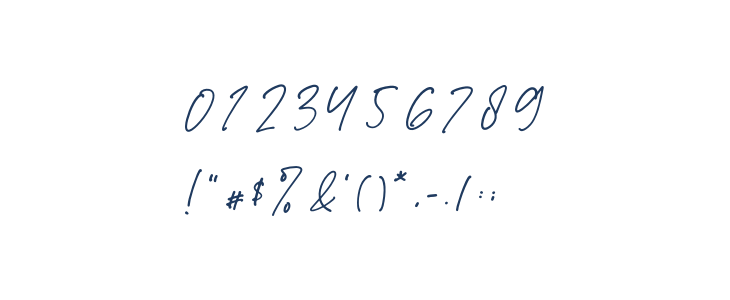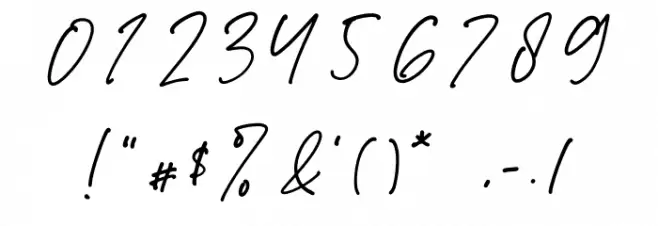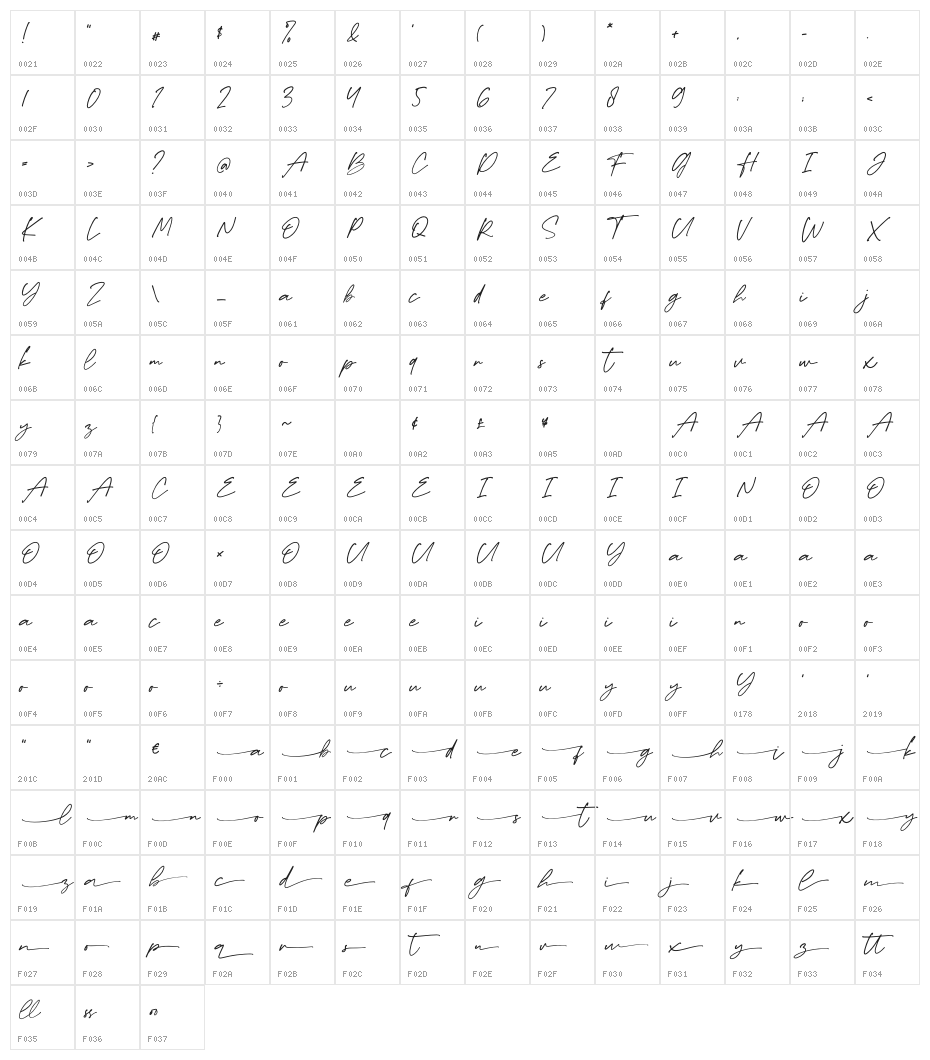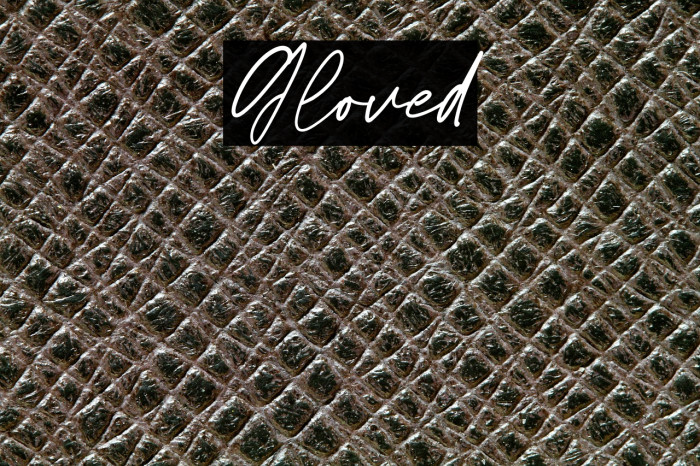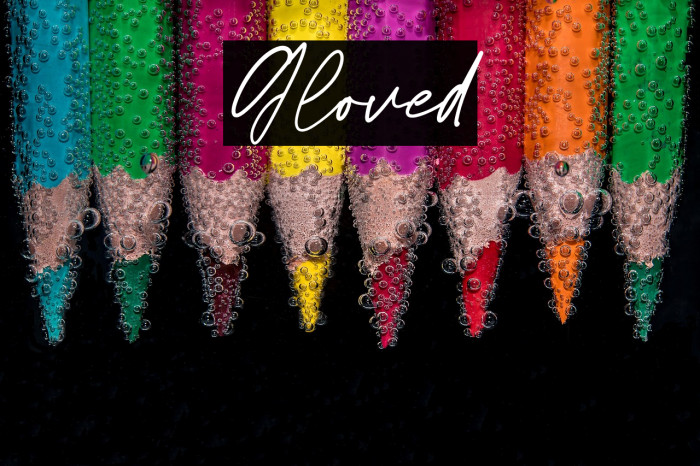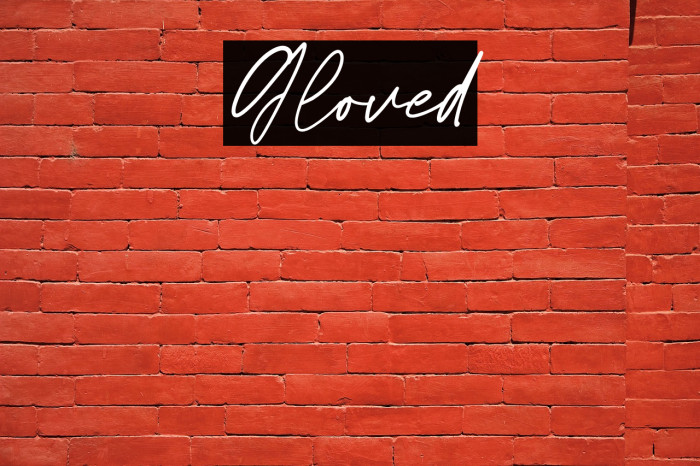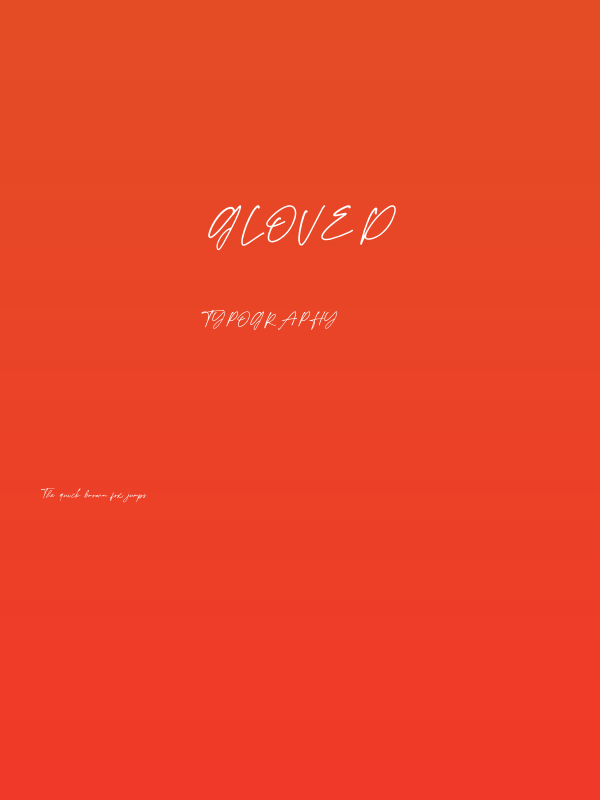
Gloved Font
Gloved Description
This font features a handwritten style with a fluid and natural flow, reminiscent of casual script writing. The characters are elegantly connected, providing a sense of continuity and movement. The strokes are smooth and slightly varied in thickness, adding a personal touch to the overall appearance. The uppercase letters maintain a consistent height, while the lowercase letters exhibit a playful variation in size, enhancing the organic feel. The numerals and special characters are designed to match the flowing style, ensuring a cohesive look across all elements.
| Use Case | Logos, Invitations, Social Media |
| Proposed Projects | Ideal for wedding invitations, personal branding, greeting cards, and social media graphics. |